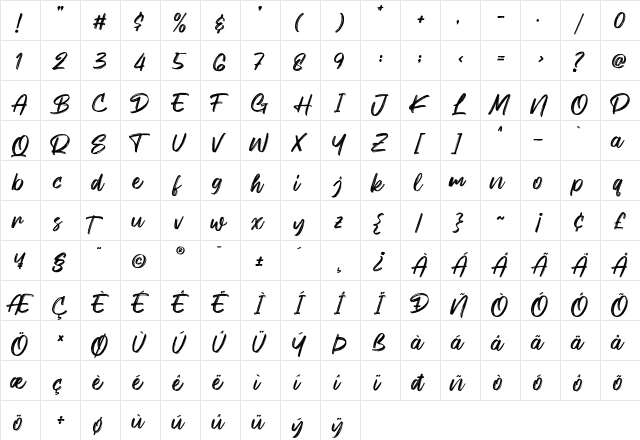
Keypass Regular
Regular · Garisman Studio Risman Ginarwan ·
Foundry Garisman Studio
FoundryGarisman Studio
DesignerRisman Ginarwan
Design Context for Keypass Typeface
Keypass is a composed and adaptable typeface that performs quietly and consistently across a wide range of design contexts.